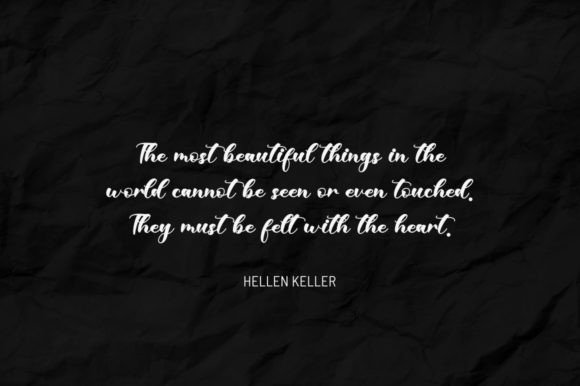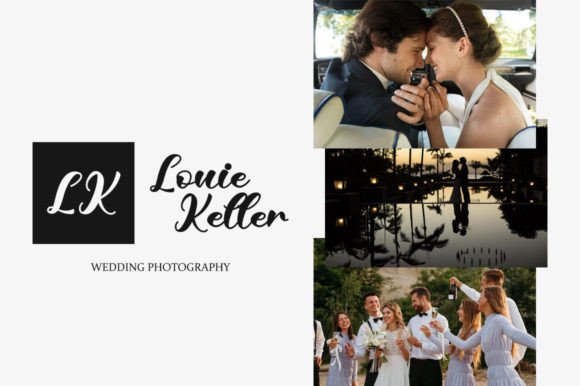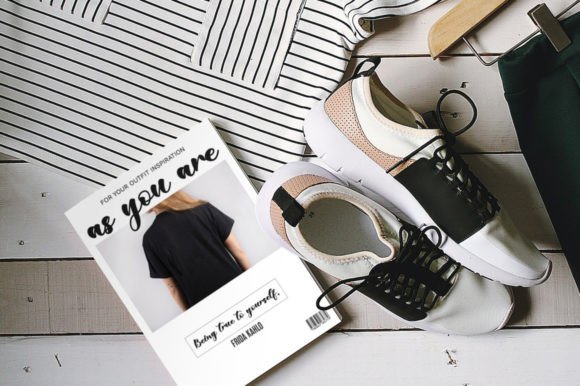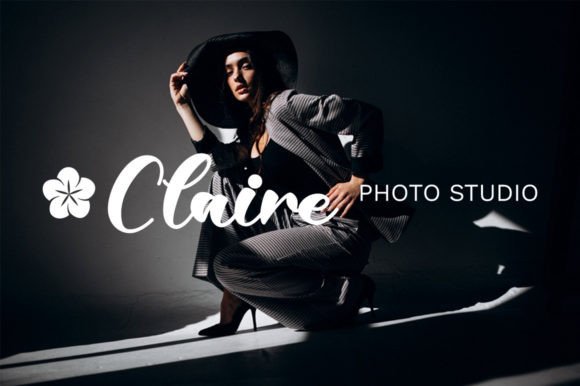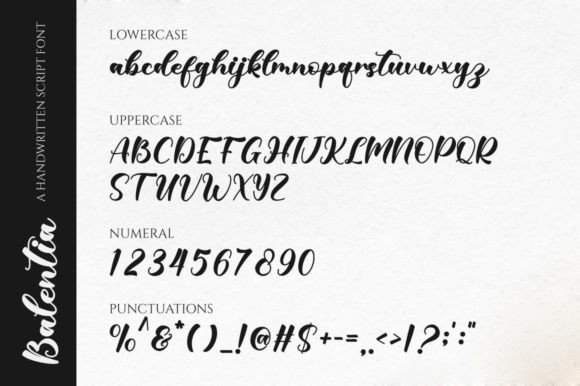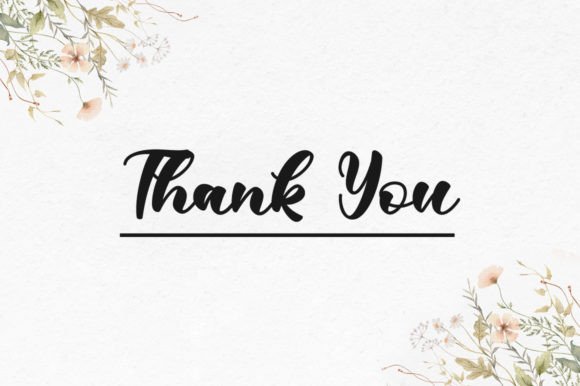
The Perfect Brushstroke: Unlocking the Power of Balentia Font
Remember the moment when you stumbled upon that perfect font that made your design come alive? The moment when the words on your screen transformed into a beautiful work of art, and you knew you had found your perfect match? For many designers, that moment is what drives them to create something truly extraordinary.
That’s where Balentia Font comes in – a timeless, handwritten font that’s perfect for creating eye-catching logos, branding, and quotes. Its unique character and expressive flair make it an ideal choice for designers looking to add a personal touch to their work. With Balentia Font, you’ll be able to create designs that are not only visually stunning but also convey the emotions and personality behind them.
Whether you’re a seasoned designer or just starting out, Balentia Font is an invaluable asset to your toolkit. Its versatility and charm make it a valuable addition to any design project, and its beauty lies in its ability to evoke feelings and tell stories through the written word.
Key Features of Balentia Font
- Font Family: Balentia is a beautiful, elegant script font with a unique, handwritten feel.
- Size: Balentia Font comes in 6 different font weights, ranging from Thin to Bold.
- Resolution: Suitable for both print and digital use at high resolutions (up to 300 DPI).
- Unique Characteristics: Features a distinctive, flowing script with subtle flair and elegance, making it perfect for creative and design projects.
Balentia Font Review
After diving into the world of typography with the Balentia Font, I have to say it’s a mixed bag for me. On one hand, I appreciate the elegant and refined look it brings to my designs ✨. The font’s classic feel makes it perfect for anything from luxury branding to high-end publications.
Here are some of its strengths:
- Unique yet timeless design ✨
- Extensive character set, including multiple weights and styles ✨
- Well-suited for both digital and print media ✨
However, I’ve noticed a few limitations that might hold it back:
- Limited support for certain languages ⚠️
- Potential issues with legibility at small font sizes ⚠️
- No bold or italic styles for some character sets ⚠️
Overall, the Balentia Font is a solid choice for designers who want to add a touch of sophistication to their work. While it’s not without its limitations, its classic design and extensive character set make it a worthwhile investment for those who value high-end typography.
Alternative Fonts to Balentia Font
The Great Vibes Font is a modern, elegant, and cursive script font. It’s perfect for creating a sophisticated and professional look in various design projects, including logos, headings, and quotes. Great Vibes Font is a great alternative to Balentia Font for designers who want a more classic and timeless feel.
Comparison to Balentia Font: While Balentia Font has a more playful and whimsical feel, Great Vibes Font is more refined and sophisticated. Great Vibes Font is ideal for designers who want a font that exudes elegance and sophistication, whereas Balentia Font is better suited for designers who want a more playful and creative look.
The Lobster Font is a fun, cursive, and script font that’s perfect for creating a playful and eye-catching look in various design projects, including headings, quotes, and logos. Lobster Font is a great alternative to Balentia Font for designers who want a more casual and relaxed feel.